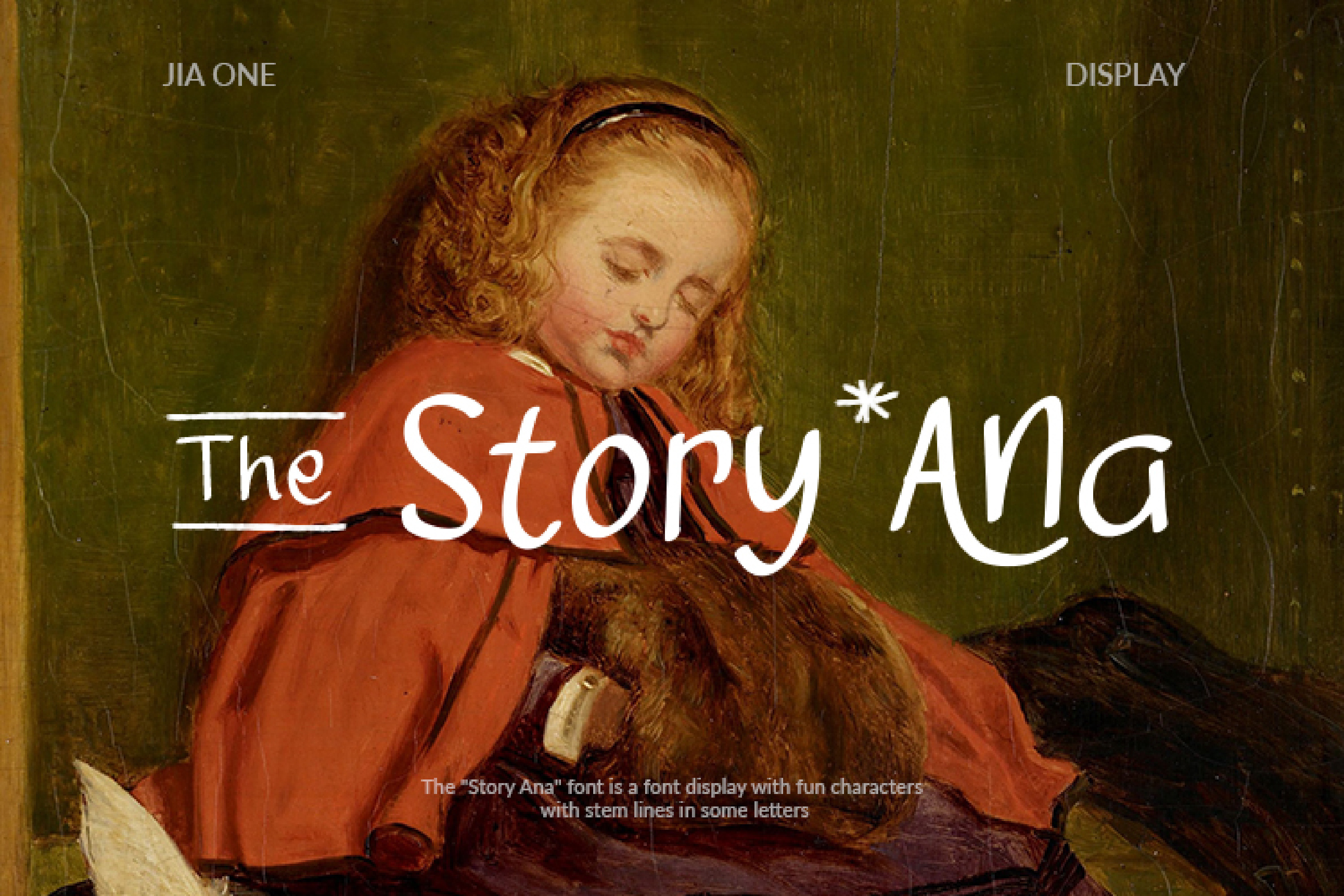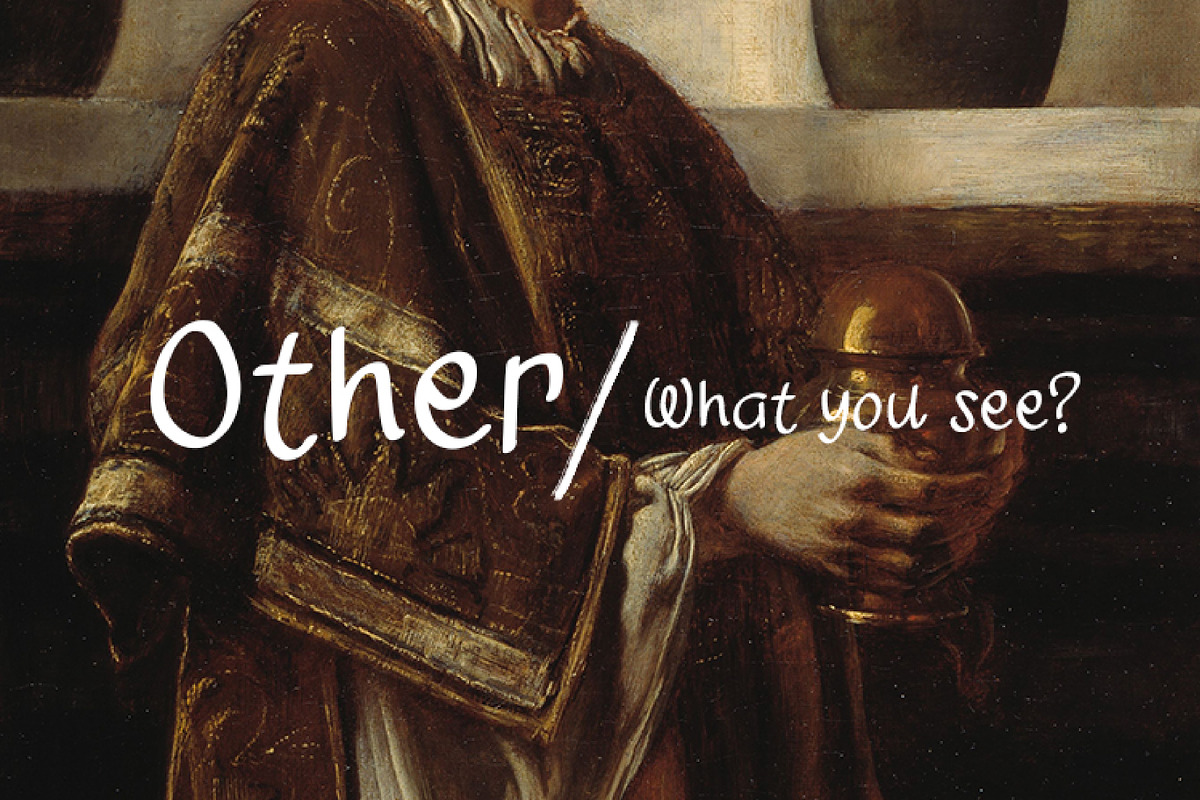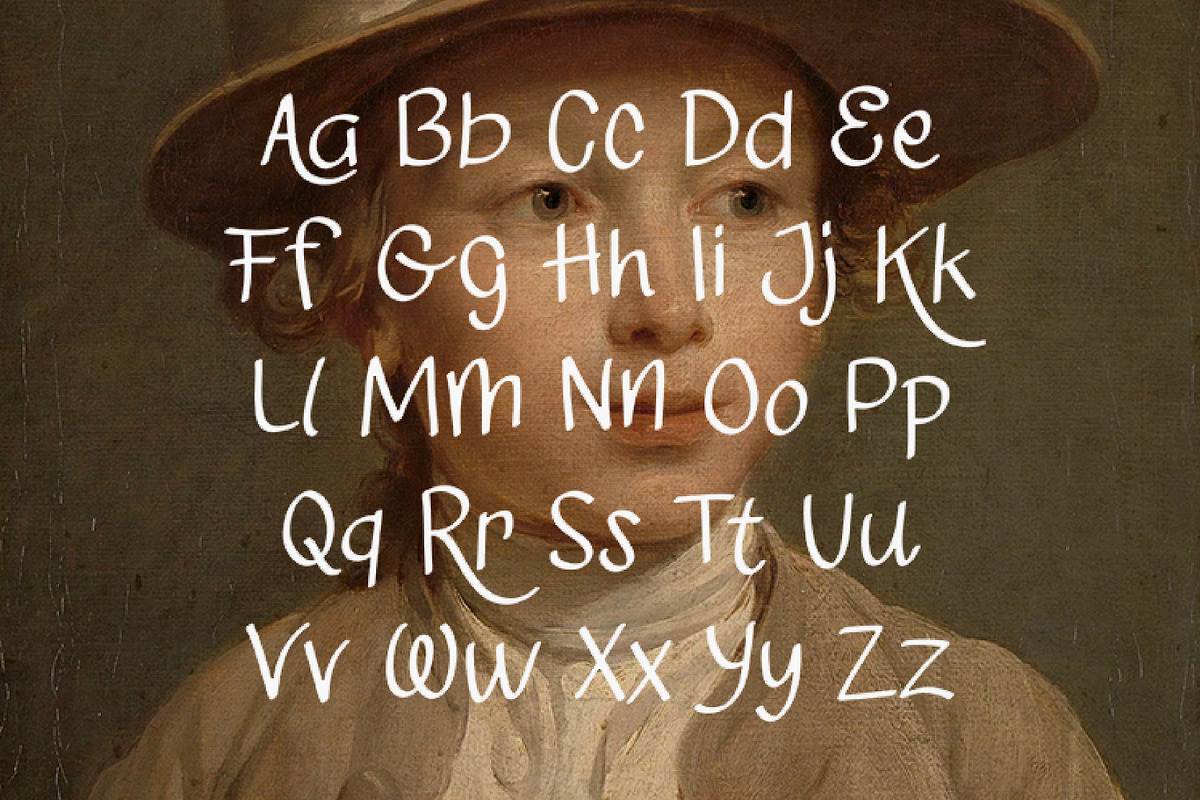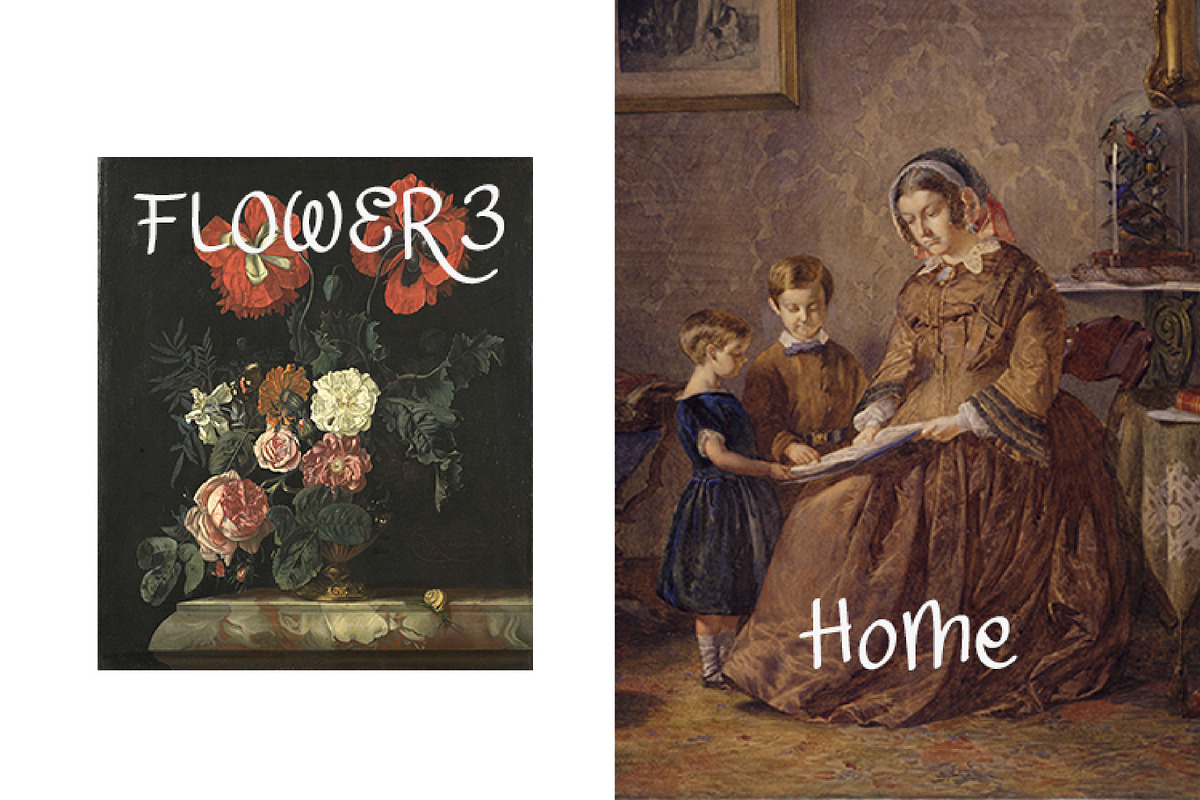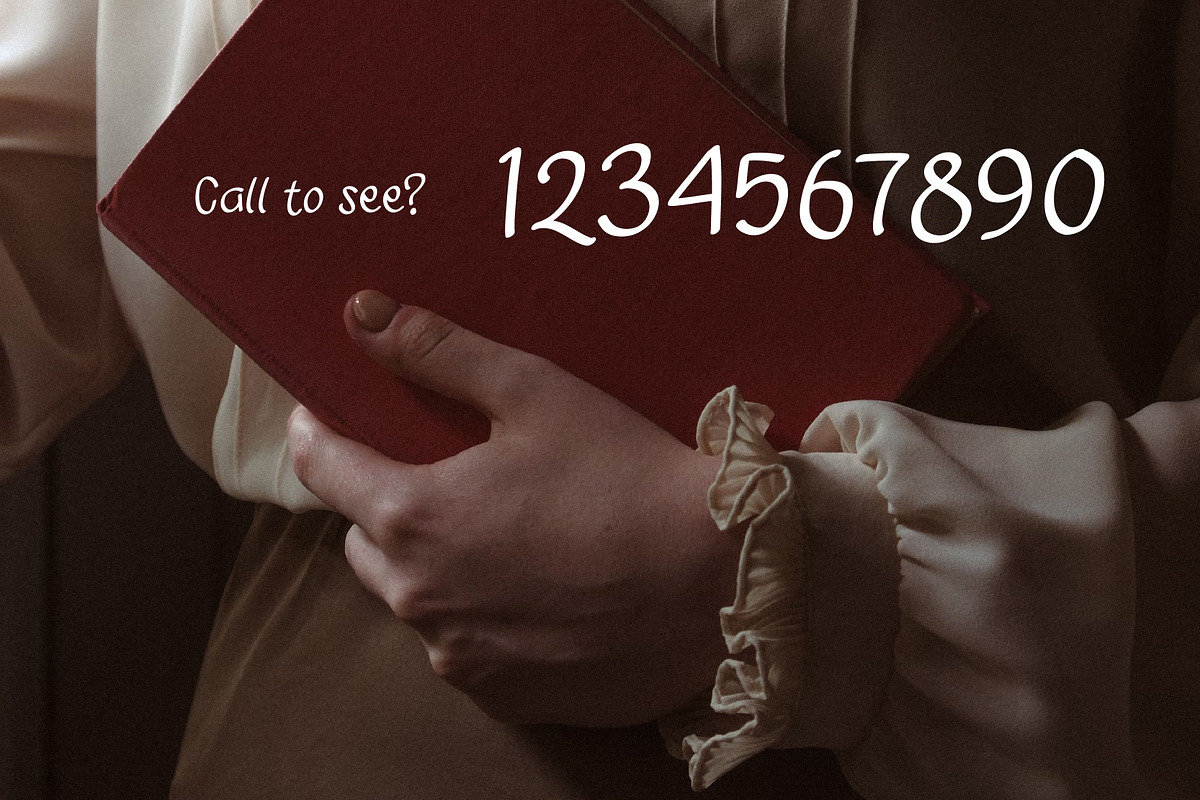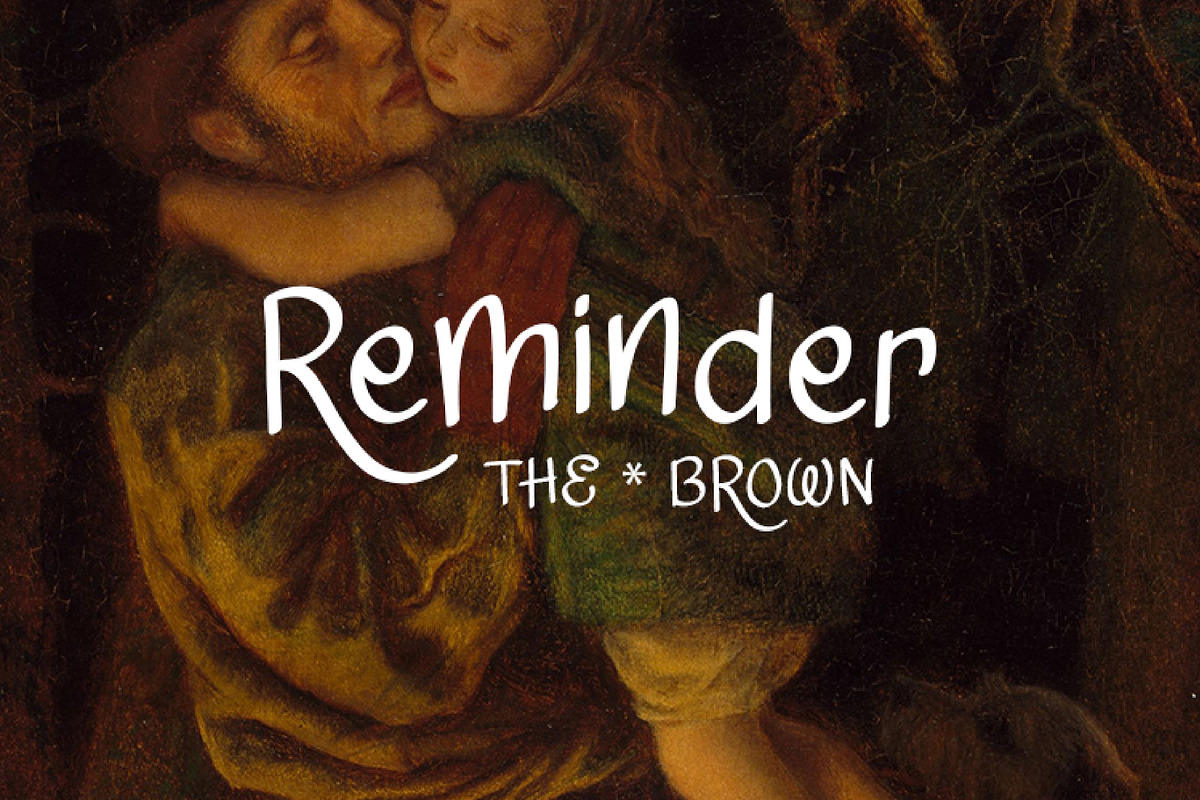
Story Ana - Handwritting font
Story Ana font is a display font with vintage accents and handwritting style. This font comes with lowercase, uppercase, number, and punctuation. OTF and TTF font formats. Can be used on both Window and iOS operating systems.